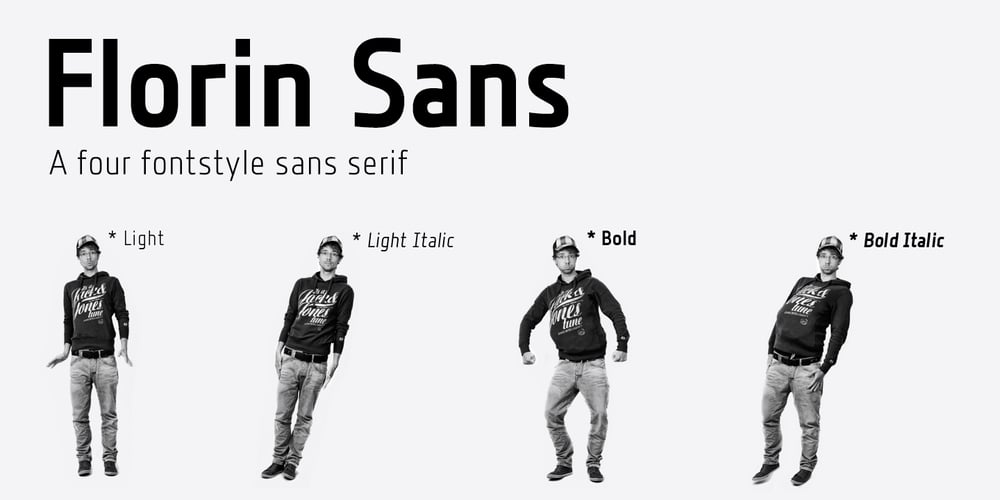
Florin Sans Font Family was designed by published by Fonts With Love. Florin Sans contains 5 styles and family package options. A clean, symmetrical and modern typeface. The font (previously named “Heimat Grotesk”) was developed by Florian Klauer for display and body copy application. What stands out about this font is it’s large x-height and constant line-weight. Nearly all letters bend with a continuous unfaltering style, giving the impression all letters are cast from the same mold. Florin Sans comes with two weights plus matching italics with 268 glyphs each, and is available as TrueType and OpenType font.